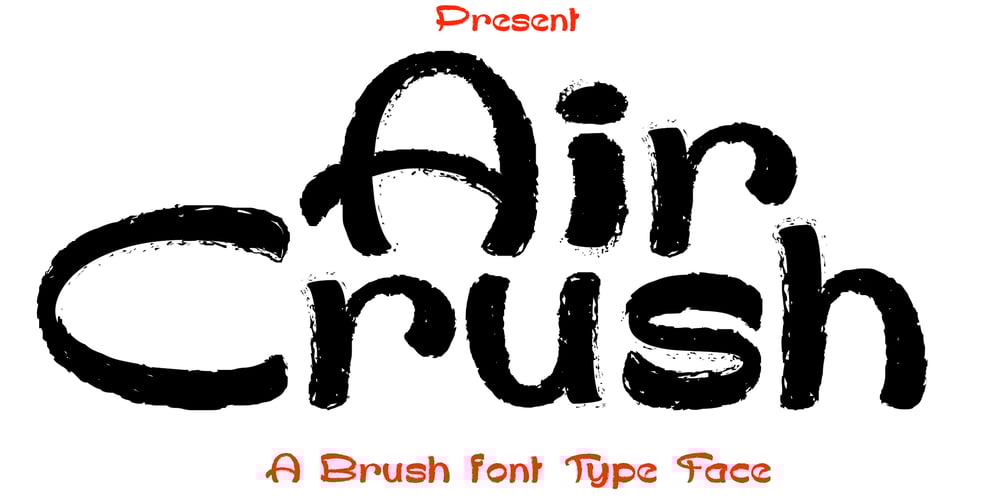
Air Crash
Air Crash font
Air Crash Font Family was designed by Ibram Syah and published by Jehansyah. Air Crash contains 1 styles and family package options. Air Crush is a modified font of the previous design, I tried to give it a touch of brush, because it will look very strong and bold, and after finishing this boomb the result, looks very energized and very exotic, very suitable for all kinds of designs, titles, books, movies, t-shirts, and much more